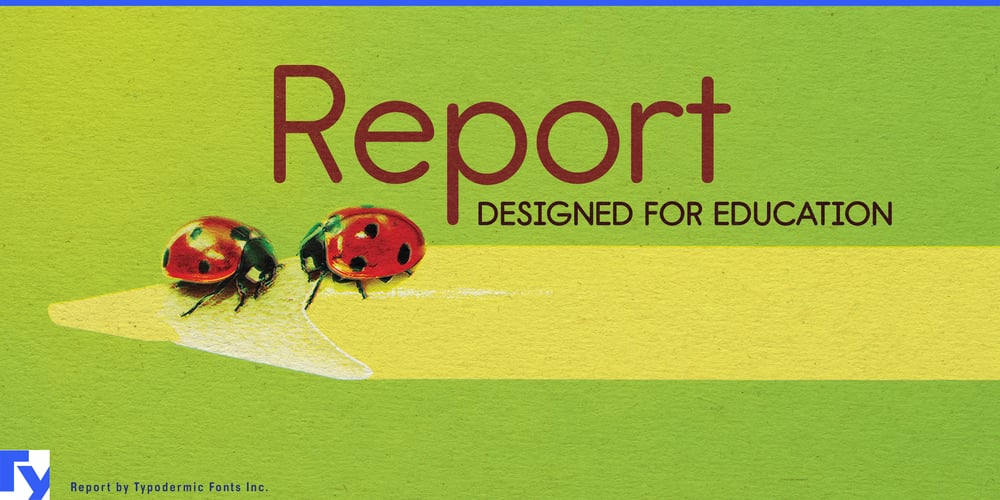
Report Font Family was designed by Ray Larabie and published by Typodermic. Report contains 6 styles and family package options. Step into the world of Report, a geometric sans-serif typeface that reimagines the essence of handwriting practice sheets for the digital age. With its rounded terminals and thoughtfully designed letterforms, Report strikes a harmonious balance between geometric precision and organic warmth, prioritizing readability without sacrificing character.Educators and designers alike will appreciate Report’s versatility. Its clean, approachable aesthetic makes it an ideal choice for educational materials, from elementary worksheets to university presentations. But don’t let its scholastic roots fool you—Report’s distinctive personality lends itself equally well to branding, editorial design, and digital interfaces where clarity and engagement are paramount. OpenType-savvy designers can unlock a treasure trove of stylistic alternates, breathing new life into their typography. Swap in a curled lowercase “q”, tighten the loops on “f” and “j”, add a subtle serif to the capital “J”, or tilt the stem of the “9”. These thoughtful variations allow you to fine-tune the typeface’s character, adapting it to suit your project’s unique voice and requirements.Report doesn’t stand alone—it’s part of a family designed to meet diverse typographic needs. For a crisper, more structured look, turn to Report School with its square-ended strokes. When a touch of whimsy is called for, Sweater School offers a more relaxed interpretation with playful, hand-drawn qualities. With three weights plus italics in each variant, this family provides a comprehensive toolkit for hierarchical typesetting and expressive design. Embracing linguistic diversity, Report speaks volumes across cultures. Its extensive character set supports most Latin-based European writing systems, ensuring your message resonates clearly whether you’re crafting content in Afrikaans, Zulu, or any of the numerous languages in between. From the fjords of Norway to the plains of Africa, Report communicates with clarity and style.Choose Report when you need typography that educates, engages, and elevates. Its unique blend of legibility and personality makes it more than just a typeface—it’s a powerful tool for visual communication. Whether you’re designing for the classroom or the boardroom, Report is ready to make your words count.